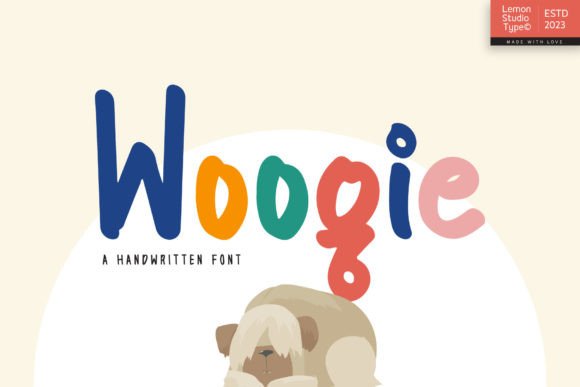
Welcome to the world of Woogie Font, a captivating display font inspired by the allure of handwritten charm. Crafted with meticulous care by the talented WildaKhairunnisa, Woogie exudes a sweet and natural aura, reminiscent of childhood memories and heartfelt connections.
Immerse yourself in the beauty of Woogie's whimsical curves and playful strokes, designed to evoke a sense of warmth and joy. This font is the perfect companion for creating heartfelt designs that speak to the heart.
With its versatility and boundless creativity, Woogie lends itself effortlessly to a myriad of design projects. Whether you're crafting heartwarming greeting cards, creating eye-catching children's clothing mockups, or designing playful headings, Woogie will elevate your designs to new heights, leaving a lasting impression on your audience.
Step into the world of Woogie Font and embark on a creative journey filled with endless possibilities. Let your imagination soar as you create designs that capture the essence of joy, innocence, and heartfelt connections. Embrace the magic of Woogie and let your creativity bloom like never before.